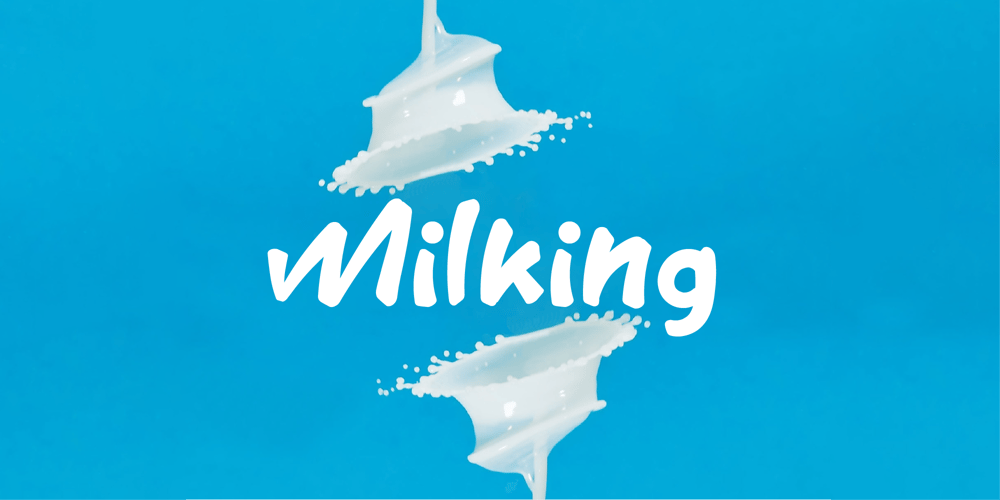
Milking Font Family was designed by Wahyu Aji Prasetyo and published by WAP Type. Milking contains 1 styles and family package options. Milk is a bouncy and quirky display font. It will add a fresh and contemporary touch to your designs. Add this unique display font to each of your creative ideas and notice how it makes them stand out!